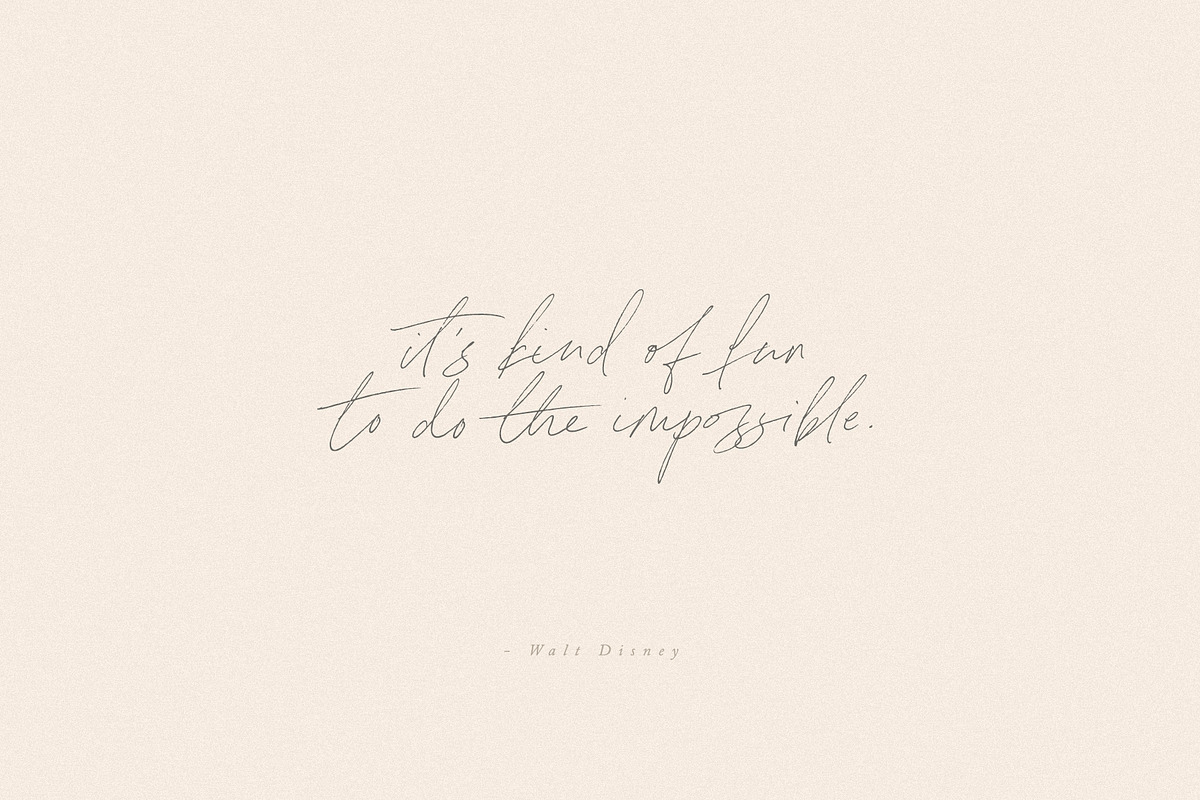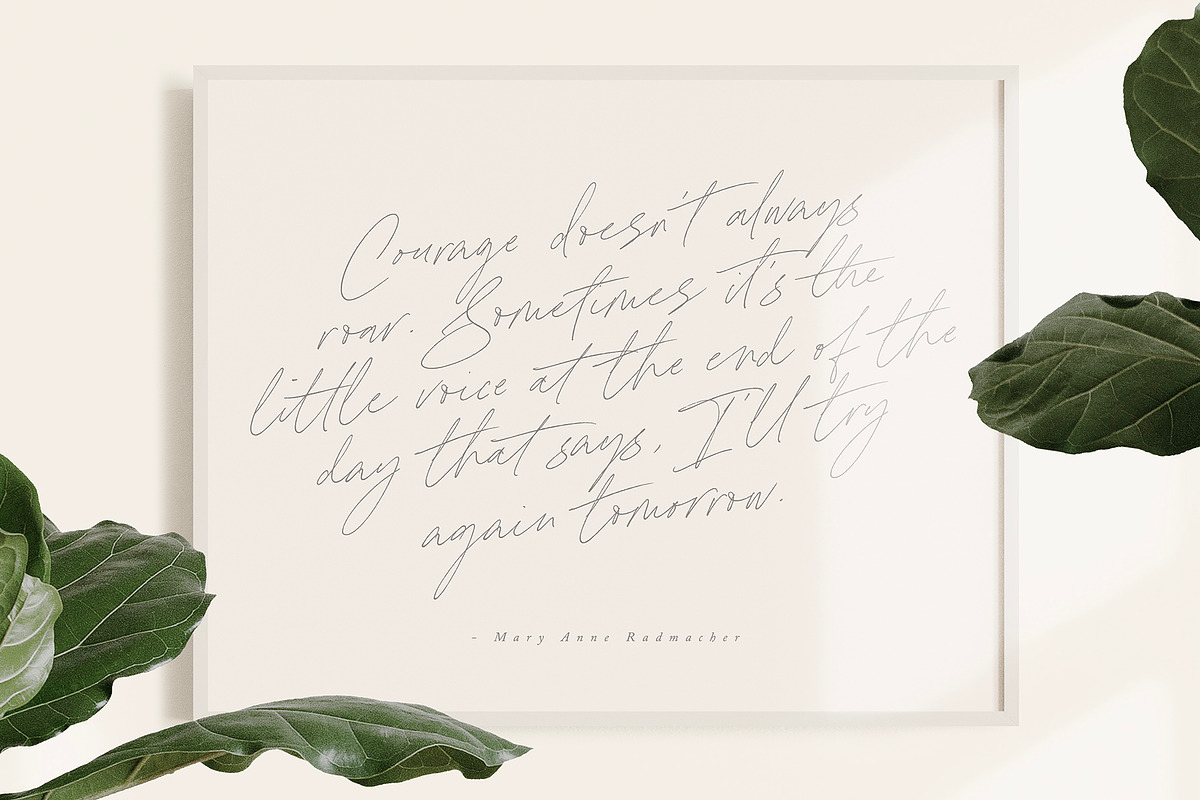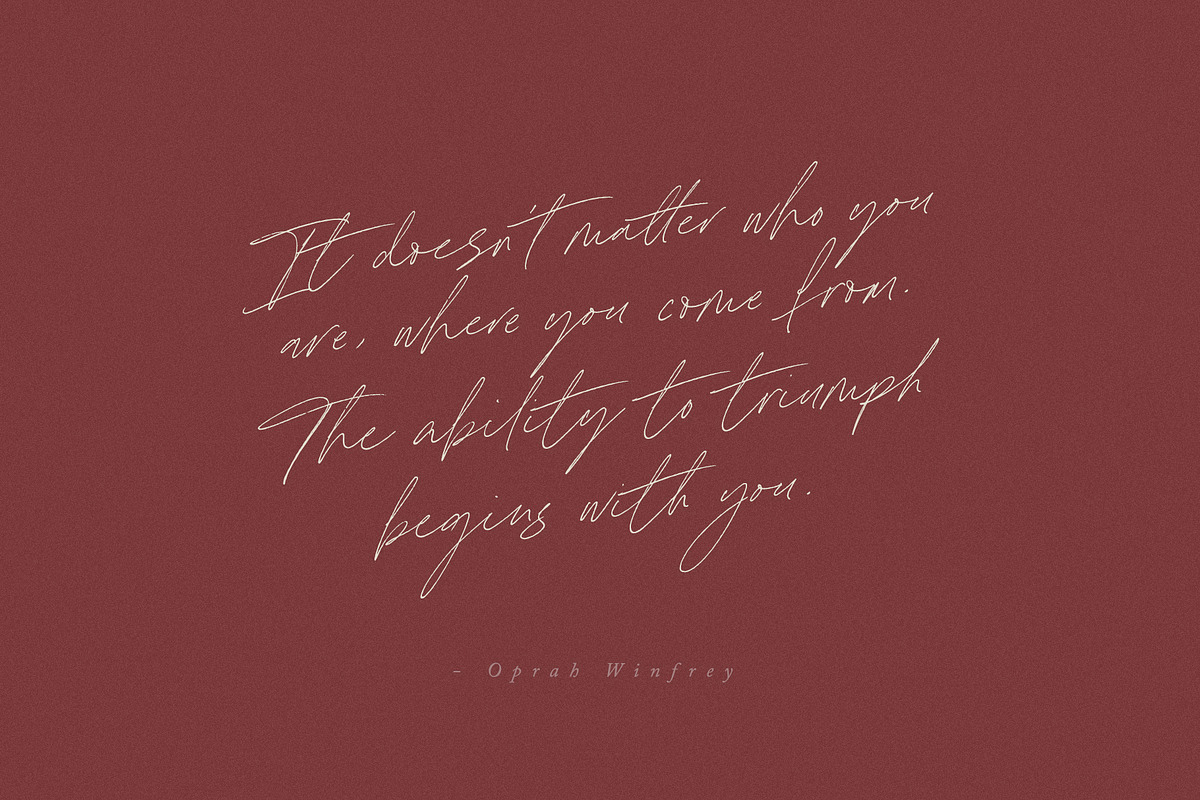
Sebastian Bobby is an authentic & organic hand-drawn script font, crafted using a real fountain pen. This font has been carefully designed to re-create natural handwritten text, and includes 78 custom ligatures to achieve those free flowing pen strokes.
Sebastian Bobby lends itself perfectly to handwritten quotes, signature-style logos, stylish branding projects, and hand-crafted product & stationery designs.